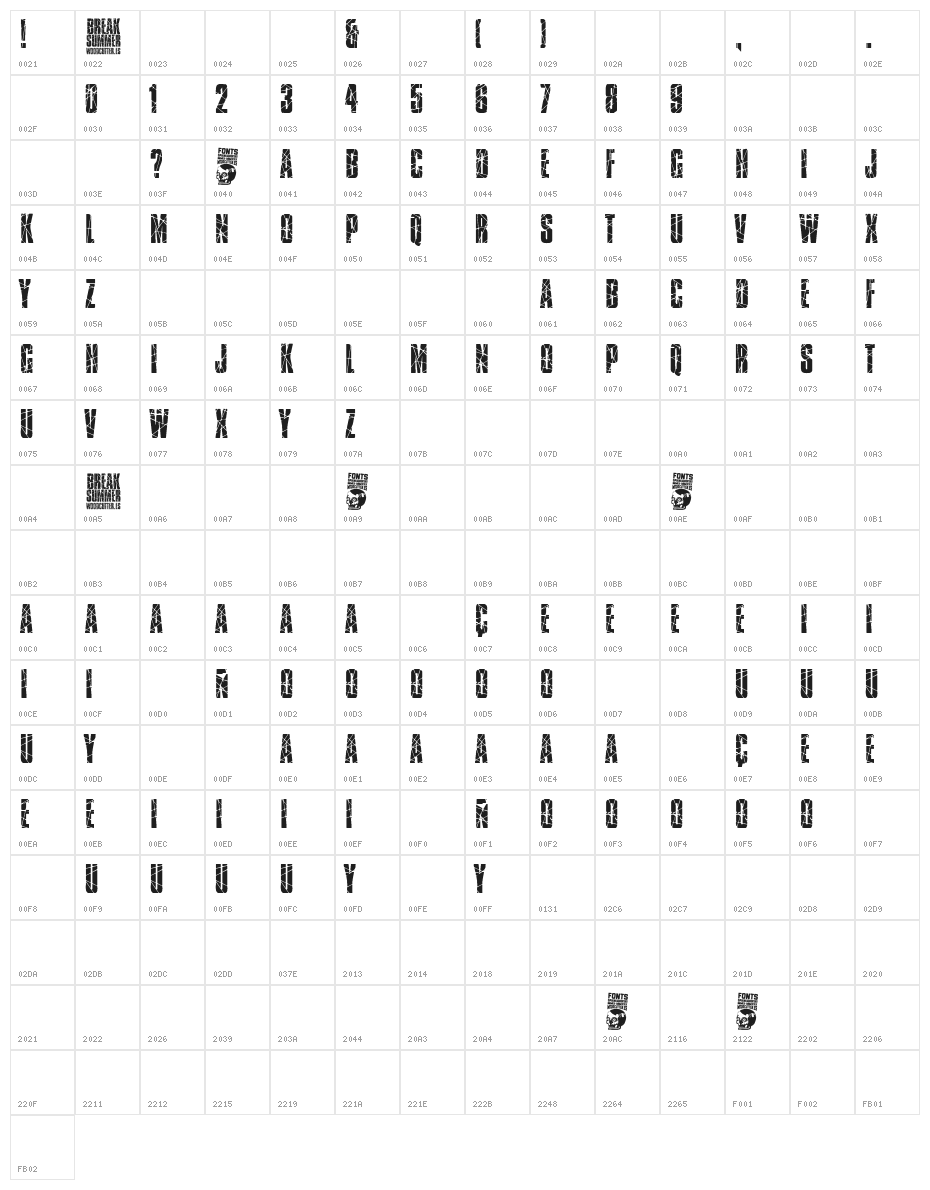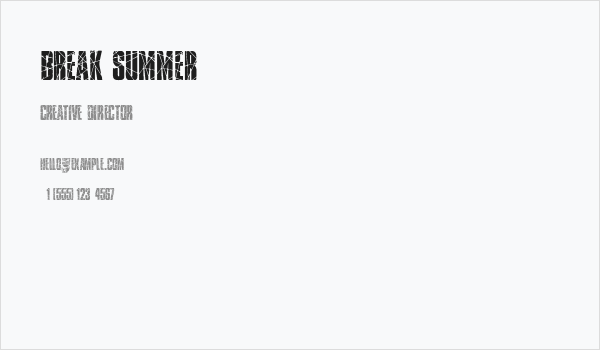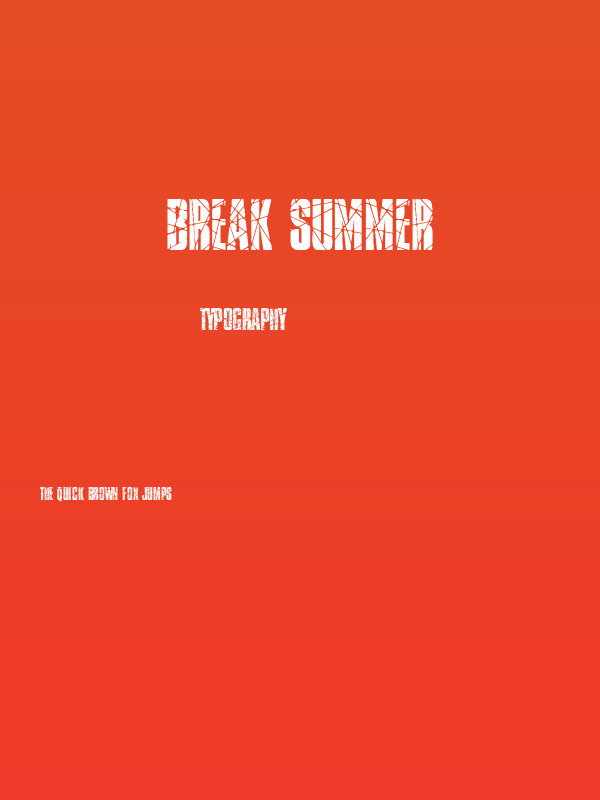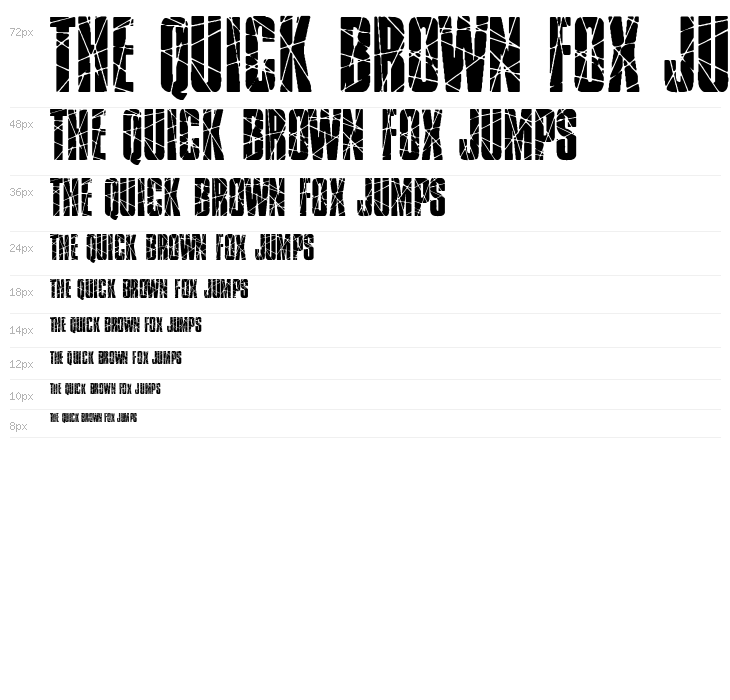
Break Summer Font
Break Summer Description
This font features a bold, fragmented design that mimics the appearance of shattered glass. Each character is composed of sharp, angular shapes that create a dynamic and edgy look. The style is highly decorative, making it ideal for projects that require a strong visual impact. The uppercase and lowercase letters maintain a consistent shattered pattern, while numbers and special characters follow the same design theme. This font is perfect for creating attention-grabbing headlines, posters, and graphic designs that need a unique and striking aesthetic.
| Overall Style | Modern, Edgy |
| Use Case | Headlines, Posters, Graphic Design |
| Proposed Projects | Ideal for posters, album covers, event flyers, and any design needing a bold, edgy aesthetic. |